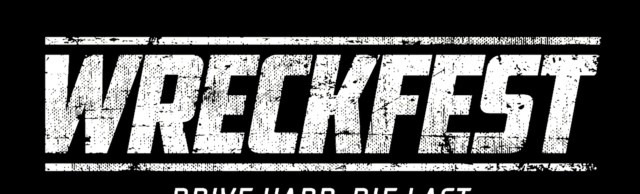
WRECKFEST VIDEO GAME TITLE, GAS PIPE STYLE, SAN SERIF DISPLAY
Any ideas what font Wreckfest is set in? Gaspipe, Industrial style, no?
I searched Myfonts but couldnt find it.
Only finding similar:
American Captain
Elephantmen Tall Bold
I double checks you are correct its American Captain.